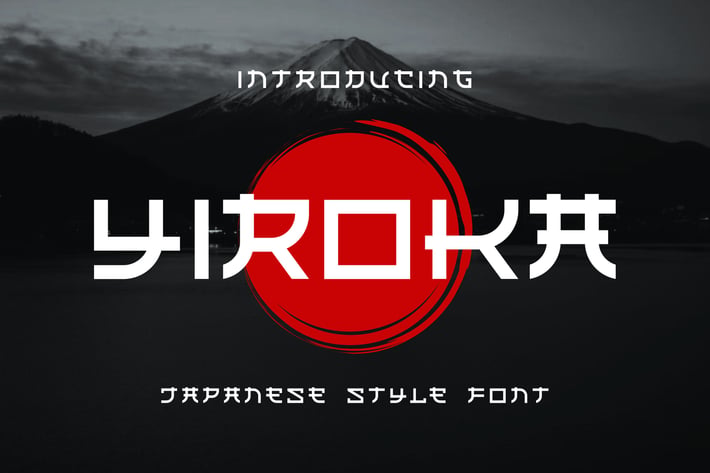
Yiroka - Japanese Modern Font
Introducing our new product Yiroka - Japanese Modern Font
Yiroka is a bold, modern display font with playful flair, ideal for attention-grabbing headlines, logos, and diverse design projects. Versatile and readable in both digital and print, Yiroka adds a dynamic touch to your message.